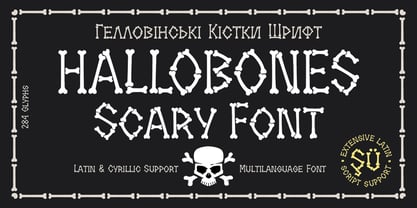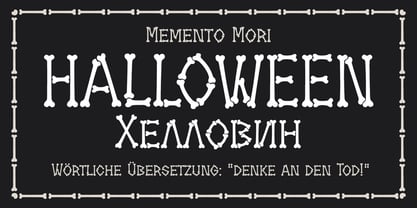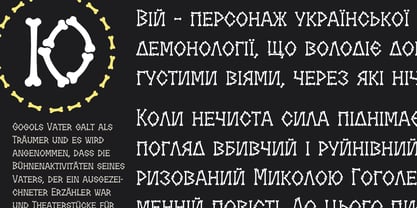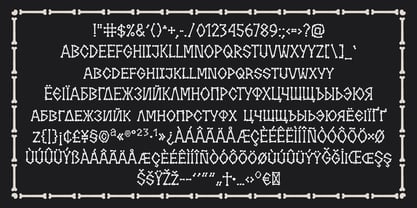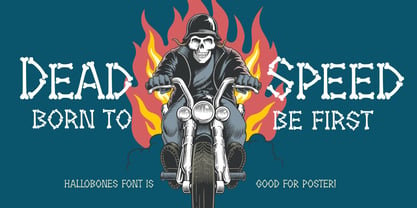
HalloBones
The HalloBones Font Family was designed by Oleg Sibiriakov and published by Ledokolua. HalloBones contains 1 styles. More about this family
HalloBones is a spooky hand-drawn display font built from bones and joints, combining creepy horror vibes with a playful Halloween spirit. Supports both Latin and Cyrillic languages, making it a versatile choice for international projects and multilingual design. Designed with irregular, organic shapes, each letter looks like it was assembled from real skeletal fragments, giving your typography a unique handcrafted feel. Perfect for Halloween posters, horror movie titles, banners, invitation cards, social media graphics, t-shirt prints, packaging, labels and seasonal branding. Works great in both digital and print projects. The font features a stencil-like construction and all-caps styling across both uppercase and lowercase, ensuring a consistent, bold and striking appearance in any composition. Includes letters, numbers, punctuation and symbols. Add a bone-chilling personality to your designs with HalloBones — fun, eerie and impossible to ignore.